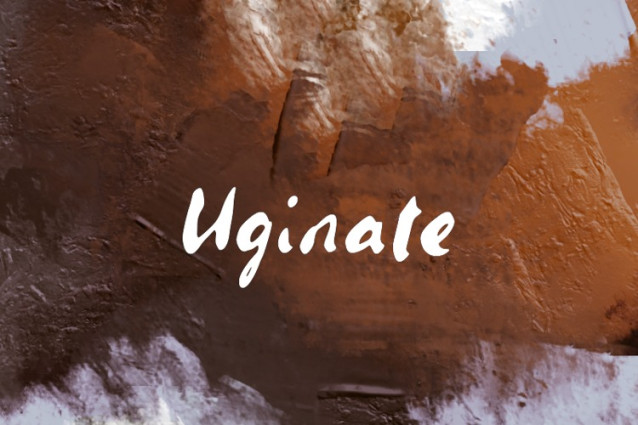
Uginate Font
Uginate Font, it would be a perfect choice to design posters, affiches, logos, t-shirt and magazine prints, eye-pleasing typographic designs and more.